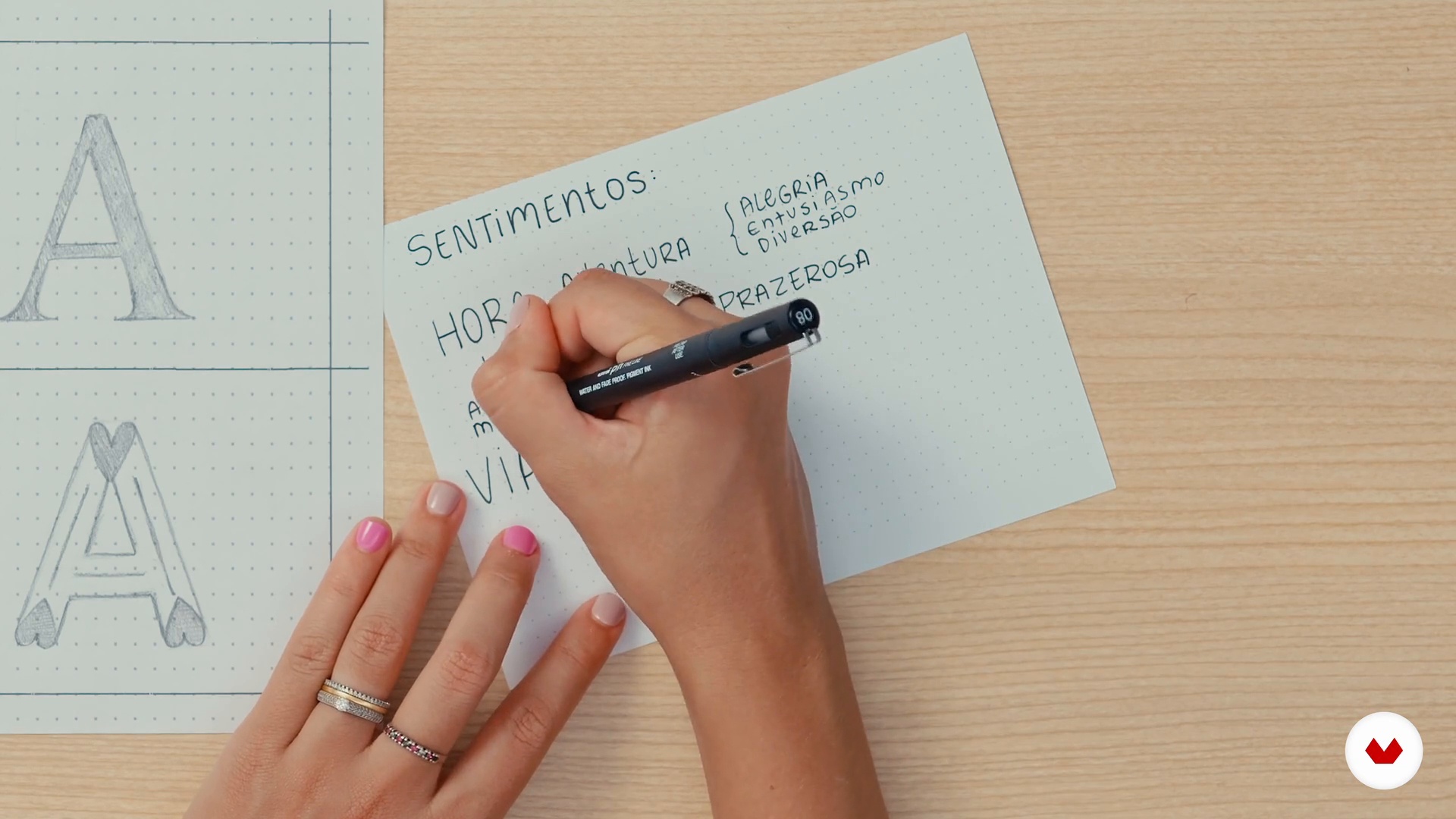
Creative Lettering: Draw Words with Style
Choosing the font style
A course by Karol Stefanini , Designer and Lettering Artist
About the video: Choosing the font style
“In this class, you will learn to better understand the context, message and feelings behind the words so that you can choose the best style of lettering to draw in your lettering.”
In this video lesson Karol Stefanini addresses the topic: Choosing the font style, which is part of the Domestika online course: Creative Lettering: Draw Words with Style. Learn to combine text, colors, and other decorative elements to compose fun, eye-catching lettering pieces on any surface.
“Choosing the font style We will start this class by analyzing once more the words that make up our final project sentence. We will do this to understand more deeply the message and feelings that each one conveys. Understanding this feeling and this message better that every word passes, it will be even easier for you to choose the font style to use in the composition of the final project. I'll start by listing the words here on my file. Come on. The word "time" related to the idea of traveling gives me a feeling of adventure, excitement or pleasurable activity. Furthermore, this word, in th...”